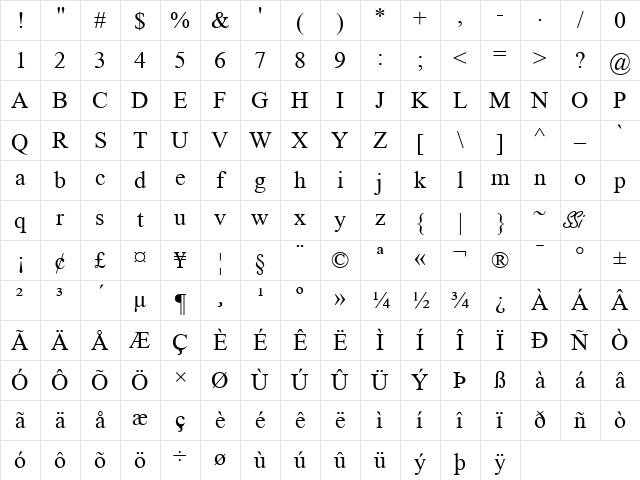
Greco Recut SSi Regular
Design Context for Greco Recut SSi
Greco Recut SSi is a composed and adaptable typeface that performs quietly and consistently across a wide range of design contexts.
Pro Tip: Use Greco Recut SSi in both headline and body roles to test its range before committing to a single application.